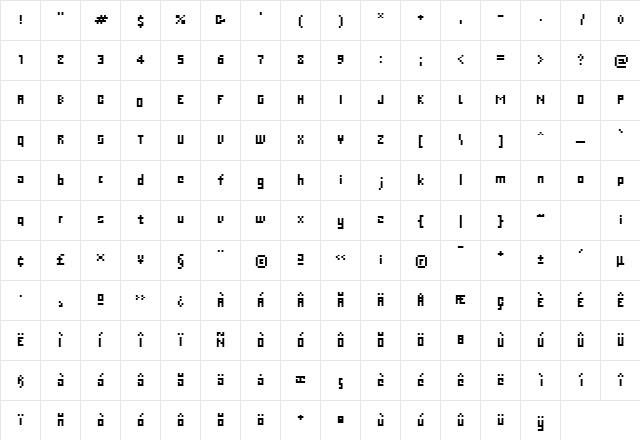
C Web Small
Design Context for C Web Typeface
C Web offers clean, dependable letterforms without strong stylistic allegiance, making it a practical choice for designers who need flexibility.